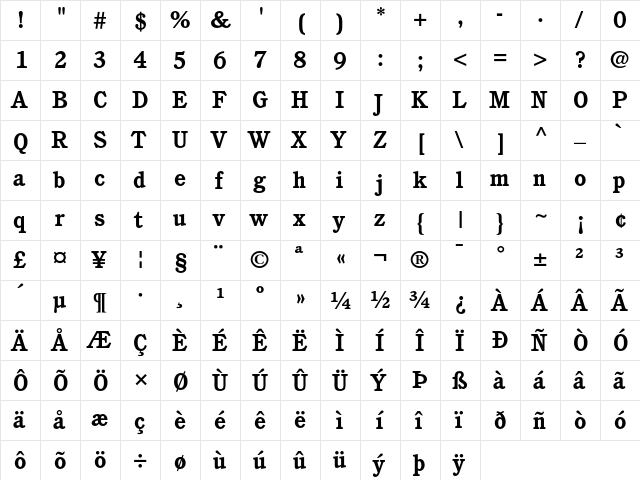
ITC Cushing Bold
Design Context for ITC Cushing Typeface
ITC Cushing offers clean, dependable letterforms without strong stylistic allegiance, making it a practical choice for designers who need flexibility. Its bold stroke weight gives it real presence on the page.
Pro Tip: Use ITC Cushing in both headline and body roles to test its range before committing to a single application.